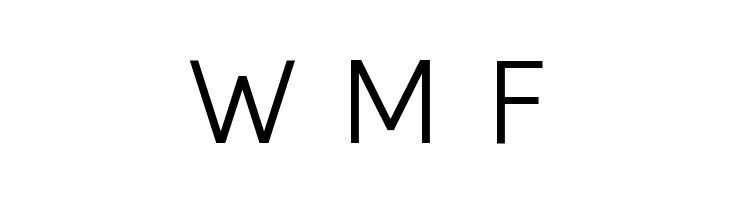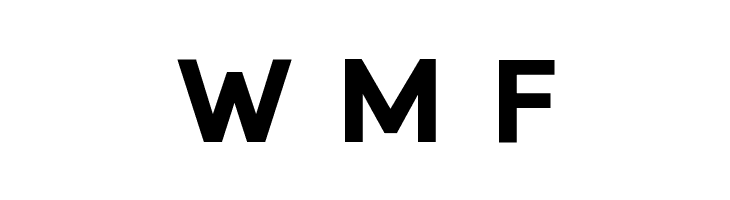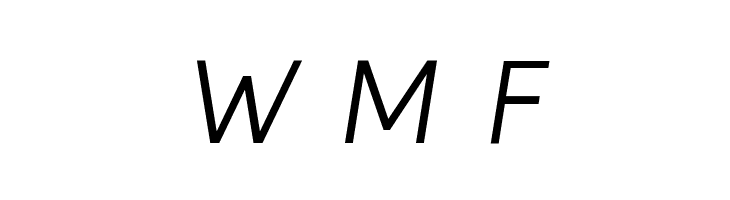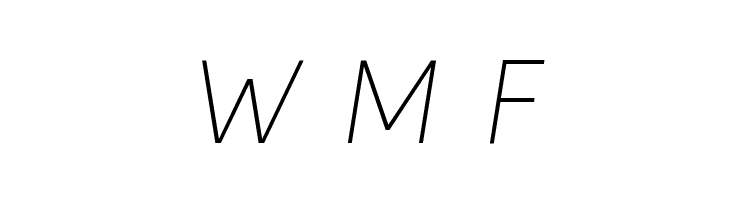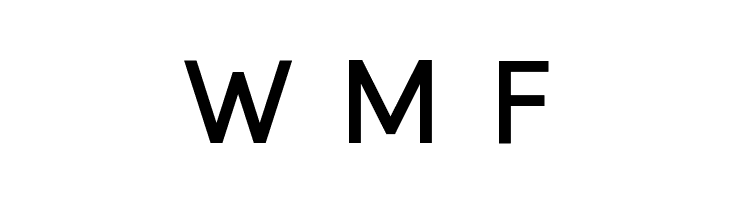
Ogonek Unicase Font
A bold, modern sans-serif font with a unicase design and geometric structure.
Ogonek Heavy Font
A bold, modern font with thick strokes and strong visual impact.
Ogonek Bold Font
A bold, modern sans-serif font with strong visual impact and high legibility.
Ogonek Light Font
A modern, light sans-serif font with low contrast and balanced proportions.
Ogonek Font
A modern, clean sans-serif font with uniform stroke width and geometric influence.
Ogonek Italic Font
A modern, italicized font with clean lines and consistent stroke width.
Ogonek Light Italic Font
A modern, light, and elegant italic font with sleek lines.